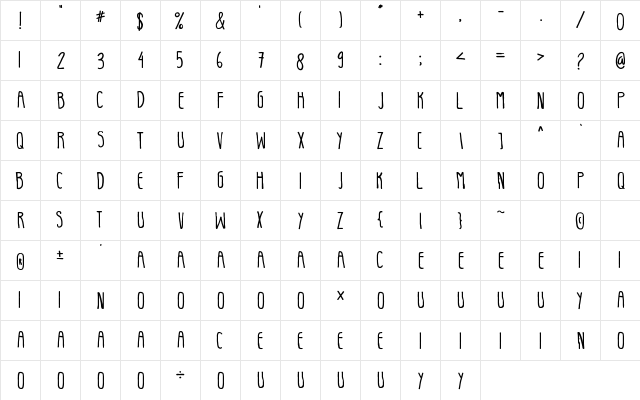
Cute Bunny Regular
Design Context for Cute Bunny Typeface
Cute Bunny is a composed and adaptable typeface that performs quietly and consistently across a wide range of design contexts.